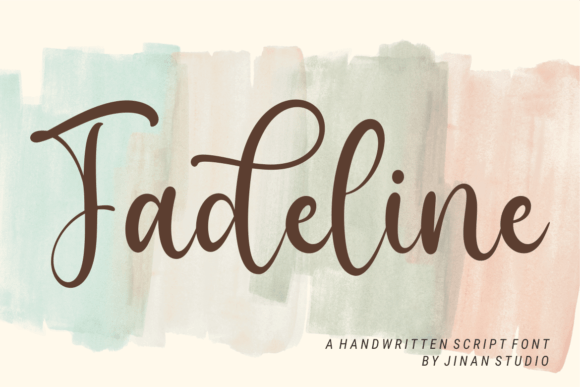
Unveil your artistic vision with Fadeline Font, a captivating script font that exudes timeless beauty and elegance. Immerse yourself in a world of creativity as you explore the intricate details and graceful curves that define this exceptional font. Inspired by the essence of romance and crafted with meticulous attention to detail, Fadeline Font will transform your designs into captivating expressions of love and affection.
With its delicate strokes and flowing lines, Fadeline Font captures the essence of handwritten elegance, evoking a sense of intimacy and warmth. Whether you're creating wedding invitations, photography projects, or logos, this font adds a touch of sophistication and charm that will leave a lasting impression.
But Fadeline Font is more than just a beautiful font; it's a gateway to unlocking your creative potential. With its PUA encoding, you'll have effortless access to a treasure trove of glyphs and alternates, empowering you to craft truly unique and personalized designs.
Embrace the allure of Fadeline Font and elevate your creations to new heights. Its versatility knows no bounds, making it the perfect choice for a wide range of projects. From adding a romantic touch to Valentine's Day designs to crafting stunning photography overlays, Fadeline Font will add a touch of magic to every project you undertake.
So, embark on a journey of artistic exploration with Fadeline Font. Let your creativity soar as you discover the endless possibilities it holds. Your designs will radiate with timeless elegance, captivating the hearts and minds of all who behold them.